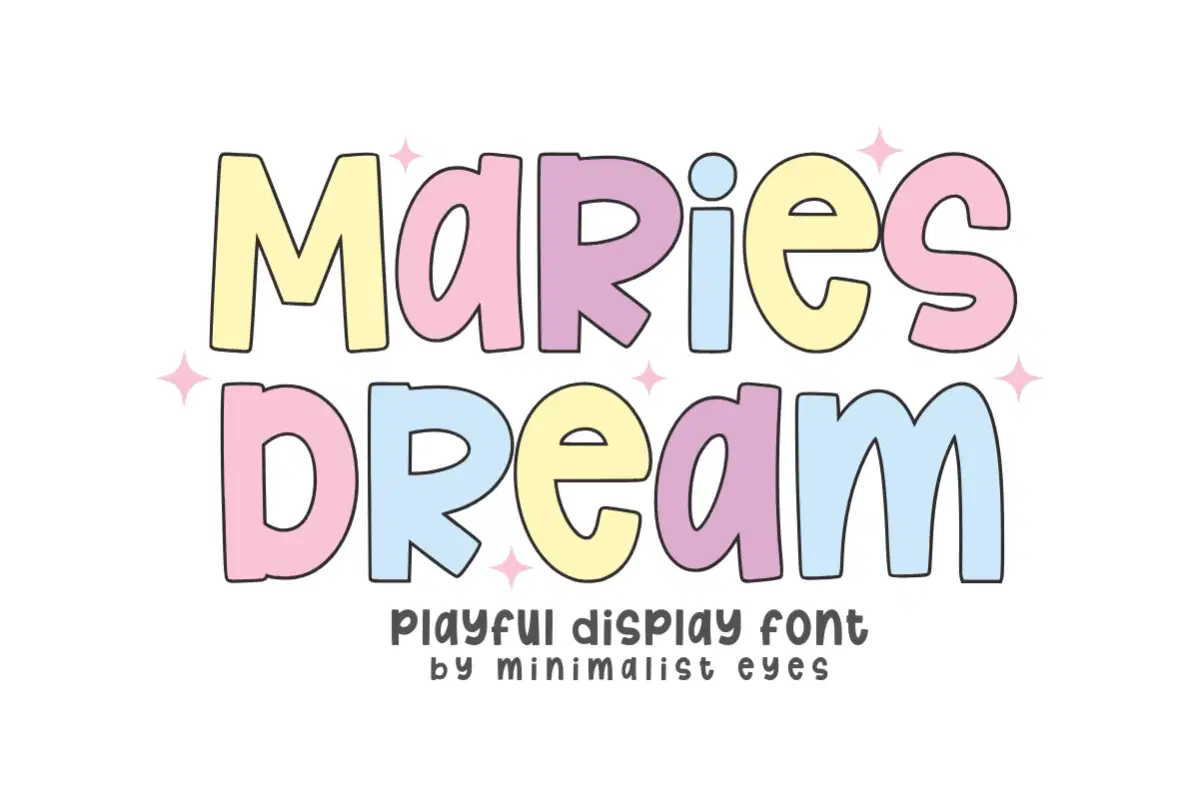
Maries Dream - Playful Display Font
Maries Dream is a font with a modern style based on bold and minimalist shapes touched in a modern and elegant style. This font is very suitable for various creative needs such as printing, t-shirts, quotes, books, titles, headlines, photography, decoration, branding, logos, and others.